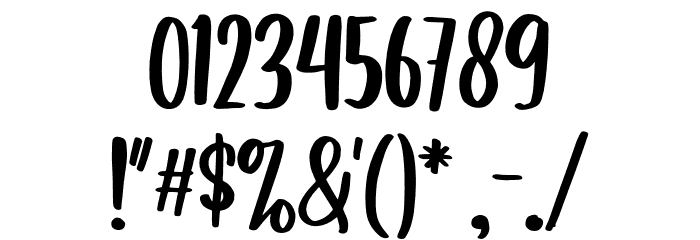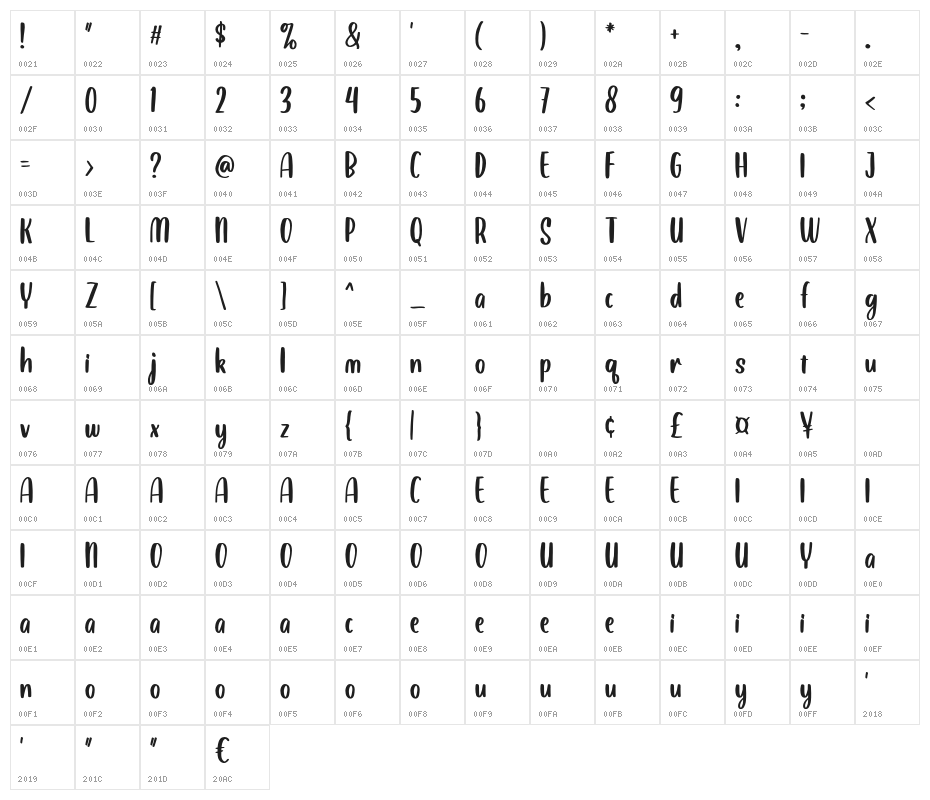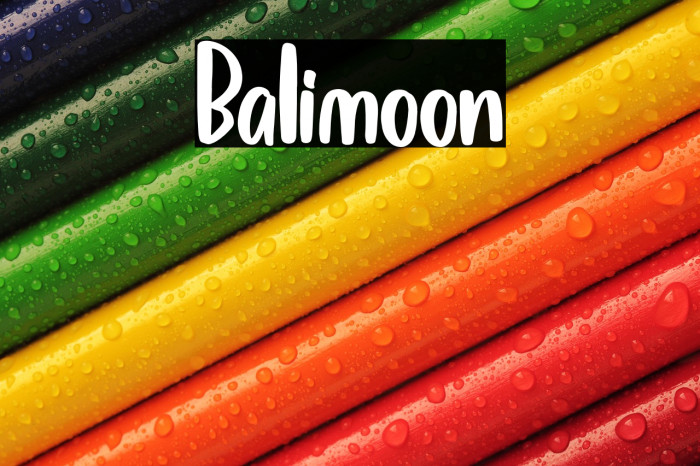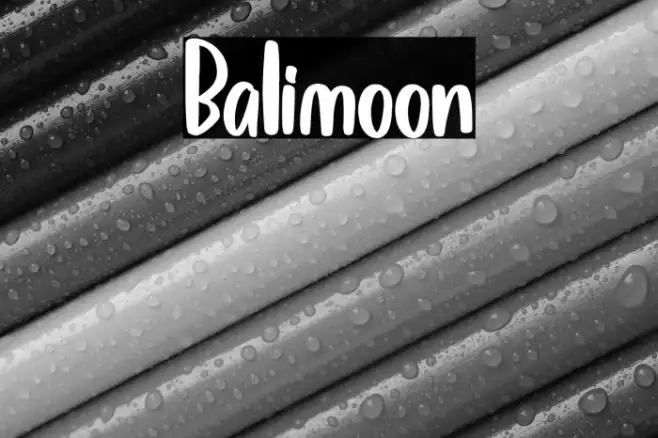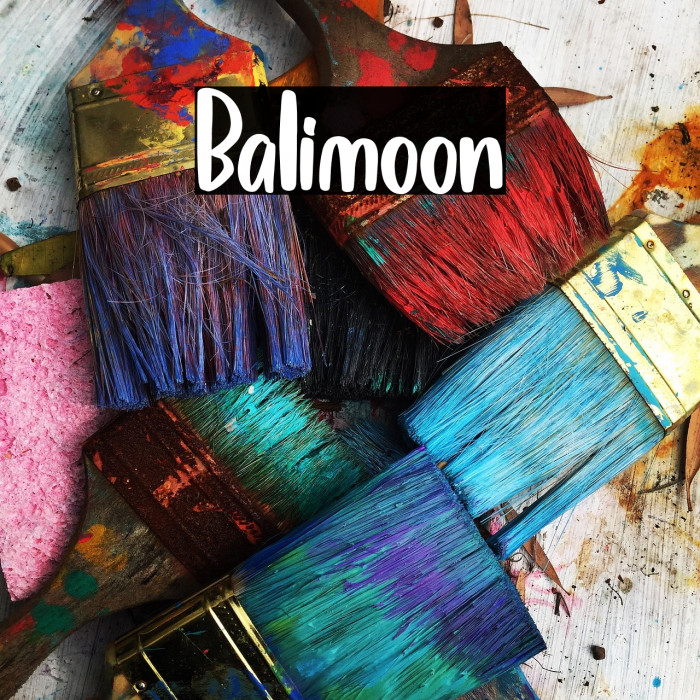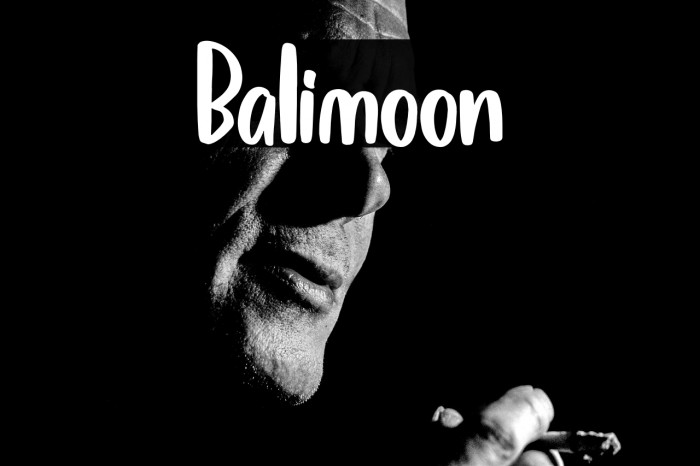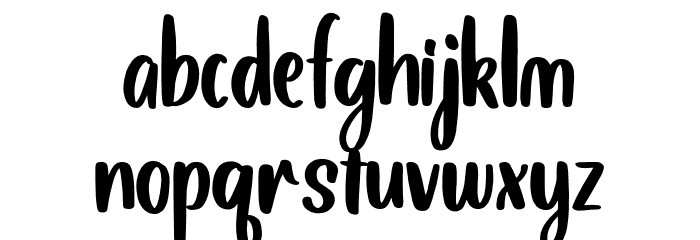
Balimoon Font
Balimoon Description
This font features a playful and bold handwritten style, characterized by its smooth curves and slightly irregular strokes that give it a lively and informal appearance. The uppercase and lowercase letters maintain a consistent flow, with rounded edges and a slight slant that adds to its casual charm. The numerals and special characters are designed to match the overall aesthetic, ensuring a cohesive look across all text. This font is perfect for projects that require a friendly and approachable feel, such as invitations, greeting cards, or branding for creative businesses.
| Proposed Projects | Ideal for invitations, greeting cards, creative branding, and playful designs. |